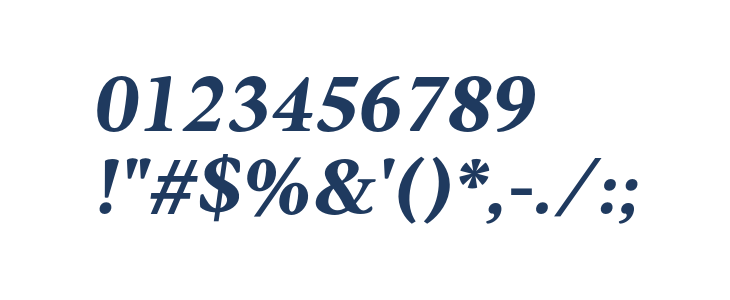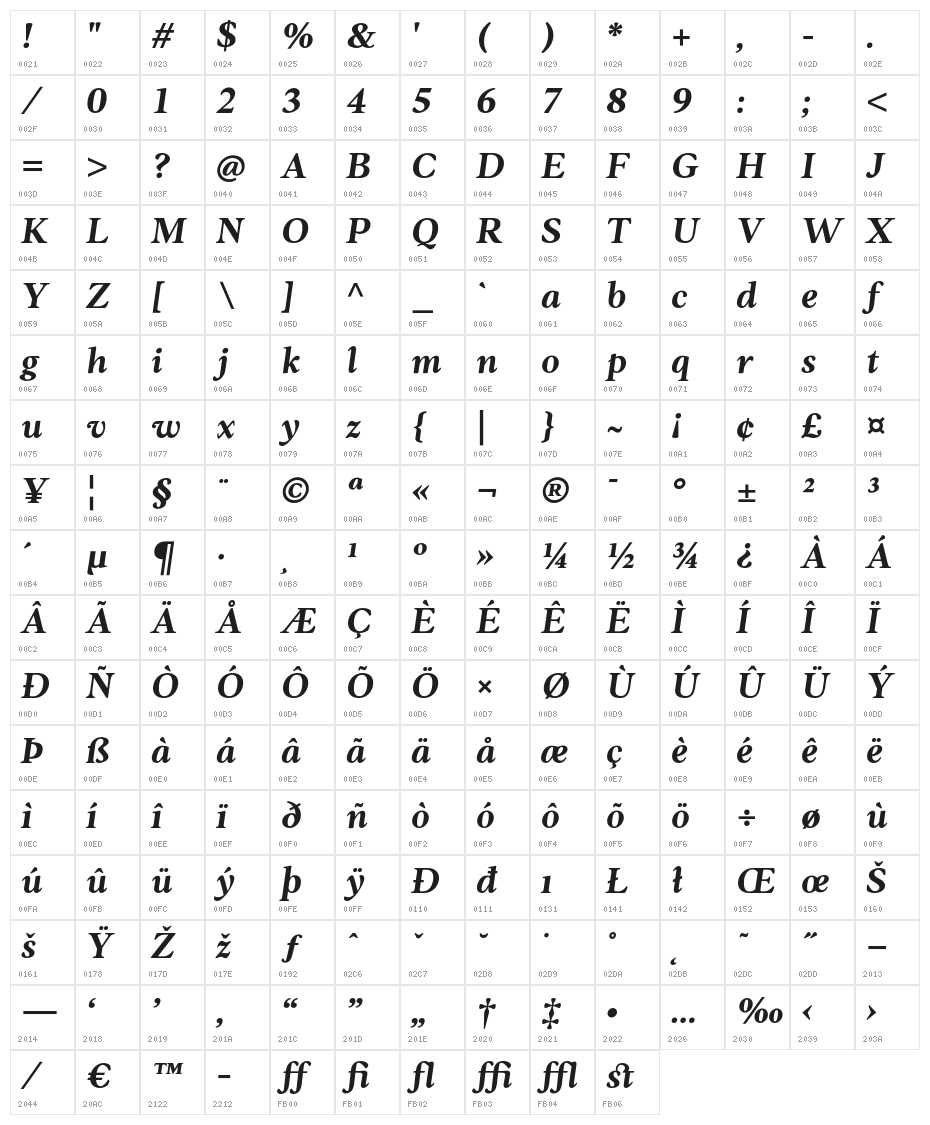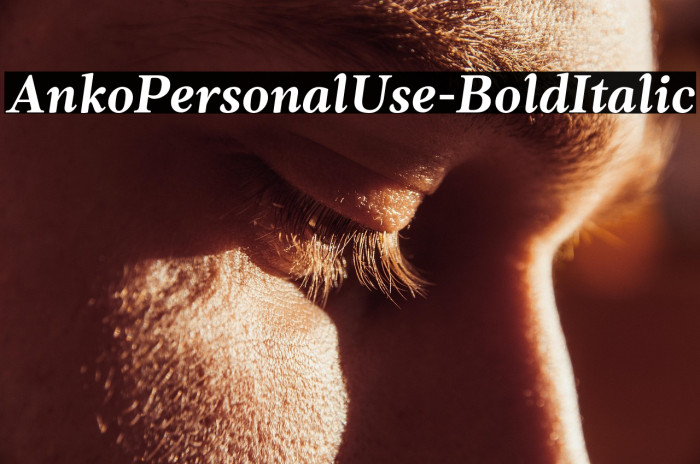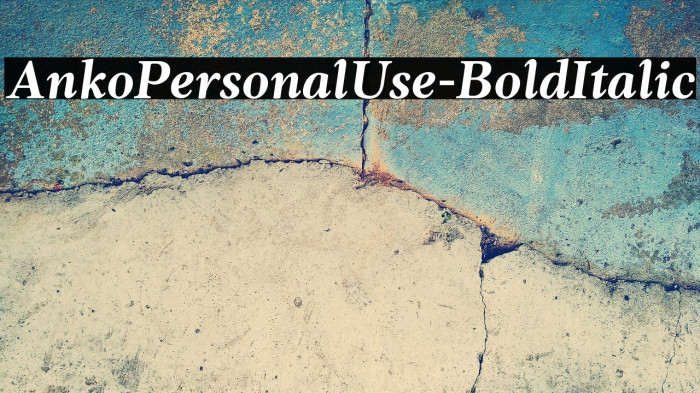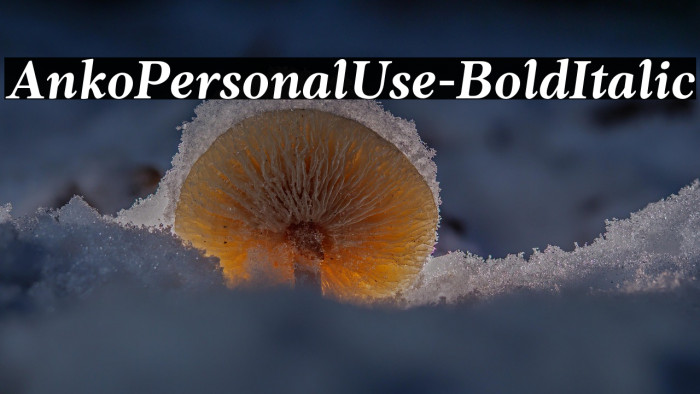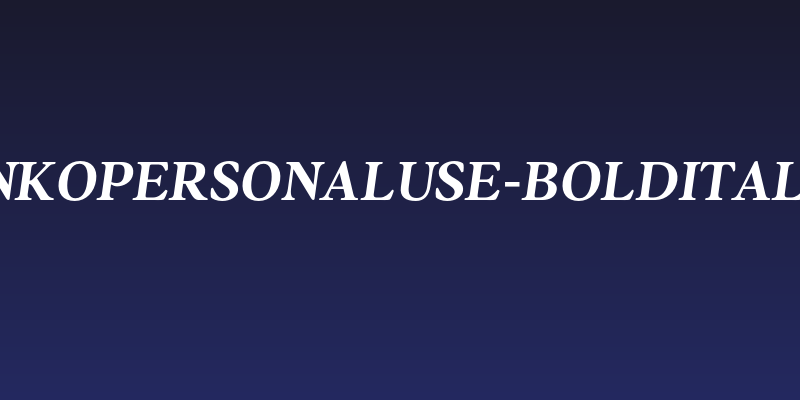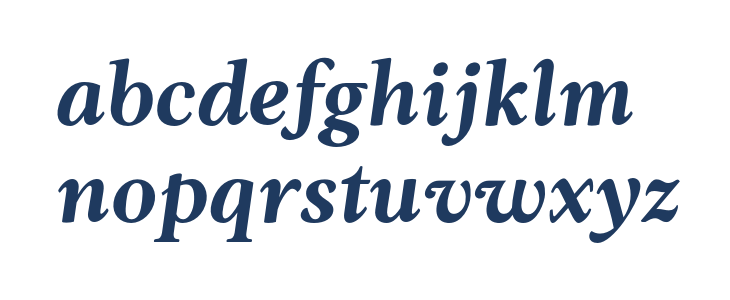
AnkoPersonalUse-BoldItalic Font
AnkoPersonalUse-BoldItalic Description
This font exhibits a bold and italicized style, characterized by its strong, confident strokes and elegant curves. The uppercase letters maintain a classic serif structure, providing a sense of tradition and formality. The lowercase letters are equally bold, with a slight slant that adds a dynamic and sophisticated touch. Numbers are clear and legible, making them suitable for various applications. Special characters are well-defined, ensuring versatility in design projects. The overall appearance is both authoritative and stylish, making it ideal for impactful headlines and branding.
| Use Case | Headlines, Logos, Editorial design |
| Proposed Projects | Ideal for branding, headlines, editorial design, and formal invitations. |